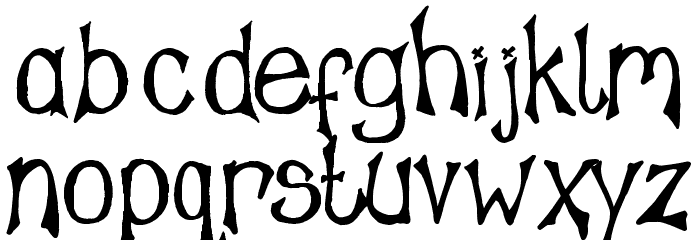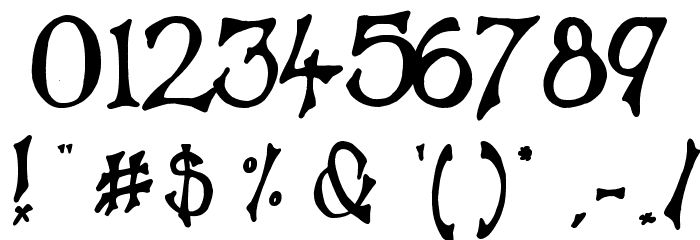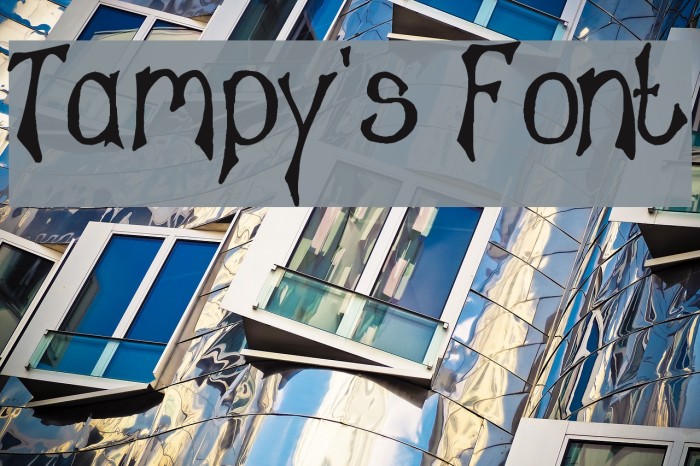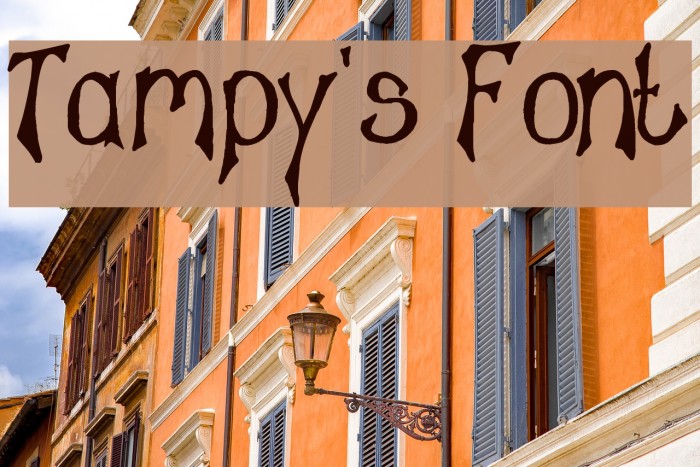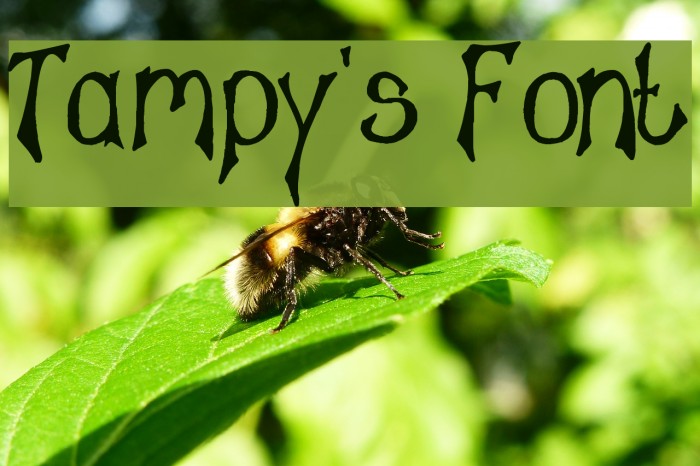
Tampy's Font Font
This font features a unique, artistic style with a hand-drawn appearance. The characters have an irregular, organic shape, giving them a whimsical and playful feel. The strokes are uneven, with some letters having exaggerated curves and angles, creating a dynamic and lively look. The uppercase and lowercase letters maintain a consistent style, while the numbers and special characters are equally expressive. This font is perfect for projects that require a creative and unconventional touch, such as posters, invitations, or artistic branding.
A whimsical, hand-drawn font with irregular, artistic strokes.
- Proposed Projects: Ideal for creative projects like posters, invitations, and artistic branding.